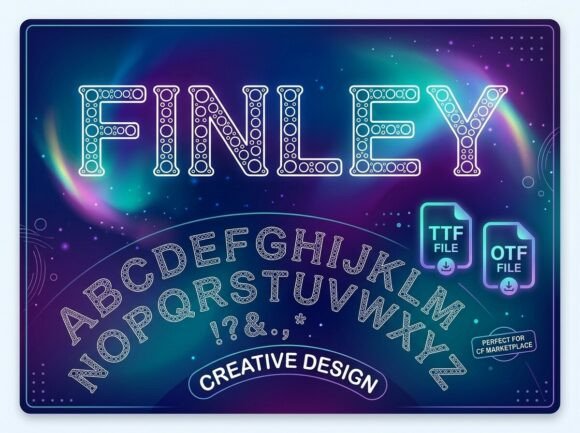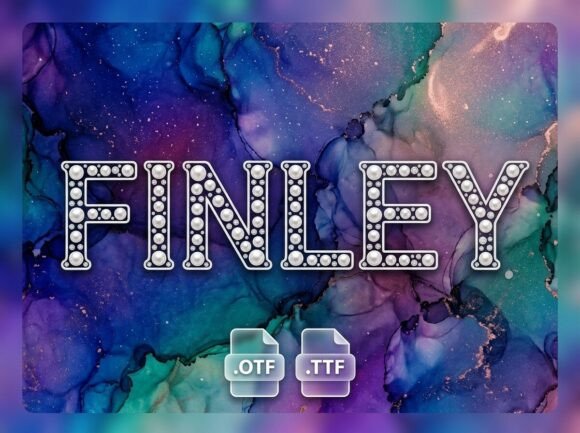
Unlocking the Power of Modern Design with Finley Font
You’ve spent hours pouring over a design, tweaking every detail until it feels just right – and then it hits you: the perfect font. That moment of clarity, where everything falls into place, and your vision comes to life. For many designers, it’s a moment of pure joy.
Meet Finley Font, a game-changing display font that brings sophistication and geometric flair to your designs. Built for modern structural impact, Finley is the perfect choice for independent architecture branding, luxury tech packaging, and high-impact digital applications. Its sturdy, slab-serif letterforms and rhythmic circular motif give it a unique “high-tech-lattice” soul that sets it apart from other fonts.
With Finley Font, you can take your designs to the next level, creating a lasting impression that’s both professional and cutting-edge. Whether you’re a seasoned designer or just starting out, this versatile font is a valuable addition to your toolkit, offering endless possibilities for creative expression.
Finley Font Key Features
- Unique Characteristics: Finley Font features a unique blend of modern and classic design elements, including subtle texture and intricate details that add depth and visual interest.
- Character Set: The font includes a comprehensive character set, including Latin, Cyrillic, and Greek alphabets, as well as a range of punctuation and special characters.
Finley Font Review
I’ve had the chance to work with Finley Font, and I must say it’s a decent addition to any designer’s toolkit. ✨ One of the things that stands out to me is its versatility – it’s suitable for both digital and print designs, making it a great all-rounder.
Finley Font also has a lovely, elegant feel to it, making it perfect for high-end branding and design projects. ✨ The font is highly legible, even at smaller sizes, which is a must-have for any designer.
While Finley Font has its strengths, there are a few limitations to consider: ⚠️ The font lacks a bold weight, which can make it difficult to use in situations where a strong, eye-catching font is needed. ⚠️ Additionally, the font’s subtlety can sometimes make it hard to read in certain contexts.
Overall, I think Finley Font is a solid choice for designers who need a reliable, elegant font. While it may not be the most exciting option, it’s definitely worth considering for projects where a high-end feel is required. With a bit of tweaking and experimentation, I’m sure designers can make the most of Finley Font’s strengths.
Recommendation
If you’re looking for a font that’s perfect for corporate branding, business cards, or other high-end design projects, Finley Font is definitely worth a look. Just be aware of its limitations and plan accordingly.
- Highly legible and versatile
- Perfect for digital and print designs
- Lovely, elegant feel
- Available in various weights and styles
- Lacks bold weight
- Can be hard to read in certain contexts
Finley Font Practical Application Guide
Finley Font is ideal for creating modern and elegant designs. Some common use cases include:
- Editorial and magazine designs
- Website headers and footers
Remember to experiment with different font sizes, colors, and styles to get the most out of Finley Font.
Alternatives to Finley Font for Designers
1. Lato
Lato is a modern sans-serif font that offers a clean and elegant look. It’s perfect for use in digital products, websites, and mobile applications. Lato is more geometric and minimalist compared to Finley Font, making it a great choice for modern designs.
Open Sans is a popular sans-serif font that’s highly legible and versatile. It’s great for use in body text, headings, and titles. Open Sans is more rounded and friendly compared to Finley Font, making it suitable for a wide range of designs, from corporate to creative.